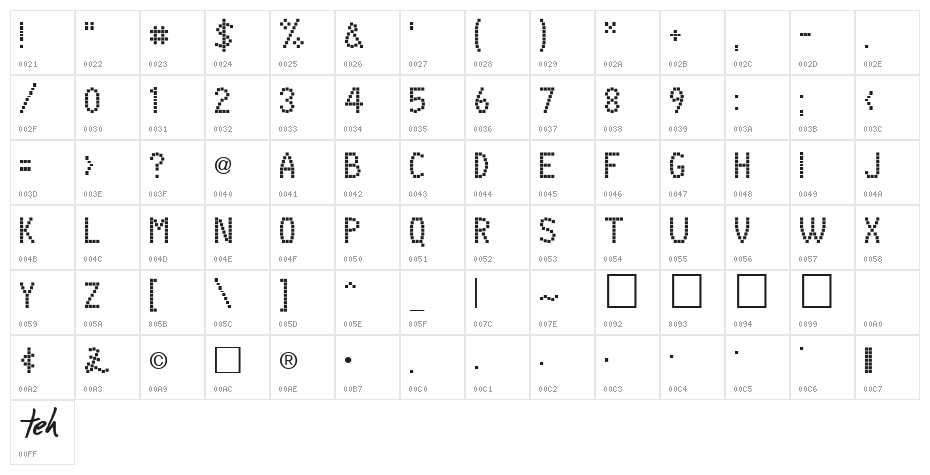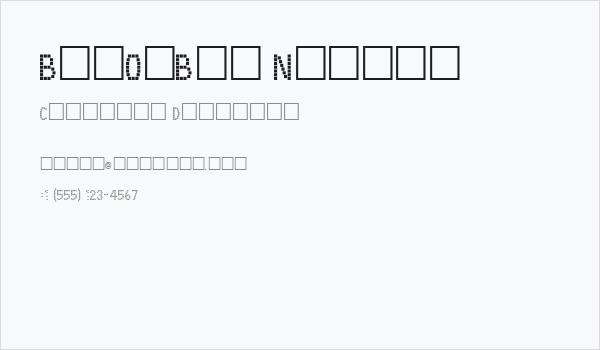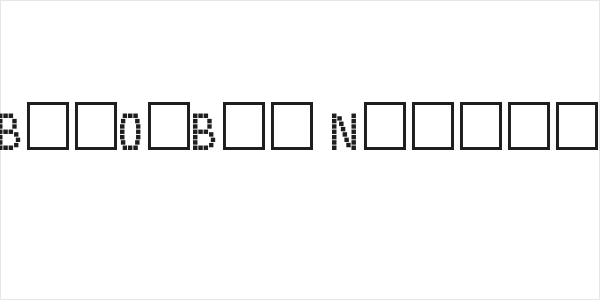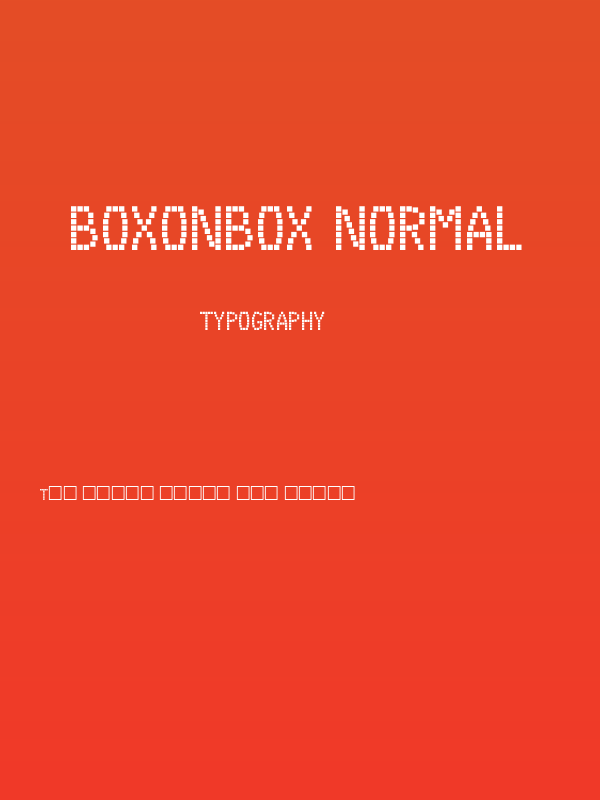
BoxOnBox Normal Font
BoxOnBox Normal Description
This font features a unique, pixelated design reminiscent of early digital displays and retro video games. Each character is constructed from a grid of small squares, giving it a distinct, blocky appearance. The uppercase letters are bold and prominent, while the numbers and special characters maintain the same pixelated style, ensuring consistency across all glyphs. The font's geometric nature makes it ideal for projects that aim to evoke a sense of nostalgia or a digital, tech-oriented theme.
| Overall Style | Retro, Digital |
| Use Case | Headlines, Logos, Digital displays |
| Proposed Projects | Ideal for video game design, tech-themed posters, digital art projects, and retro-inspired branding. |